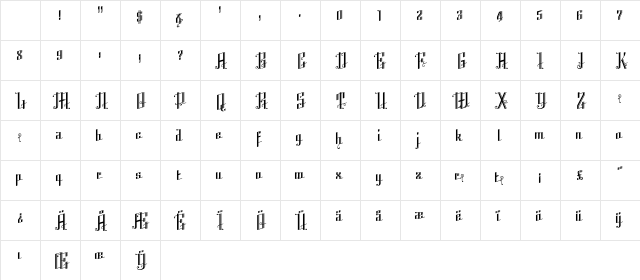
K22 Angular Text Regular
Foundry: Toto
Designer: Herman Ihlenburg, Toto
Design Context for K22 Angular Text
K22 Angular Text is a composed and adaptable typeface that performs quietly and consistently across a wide range of design contexts.